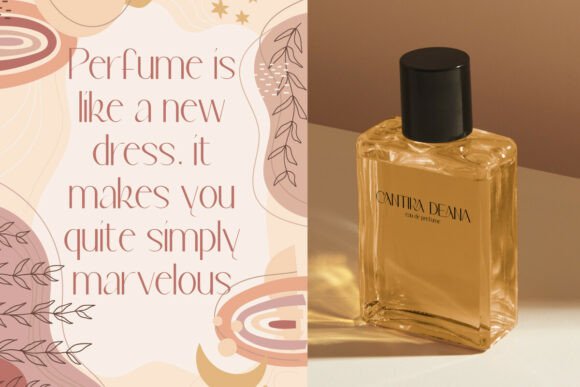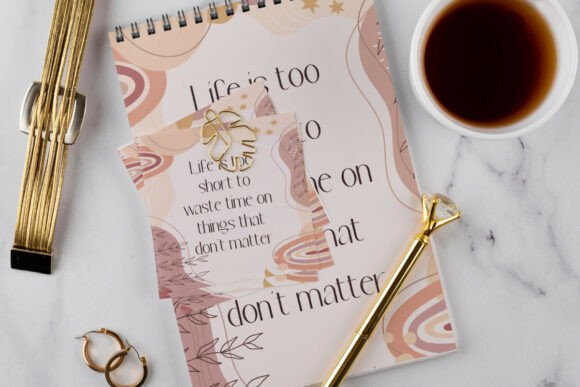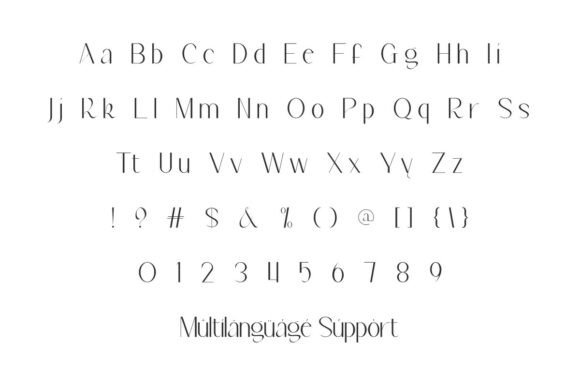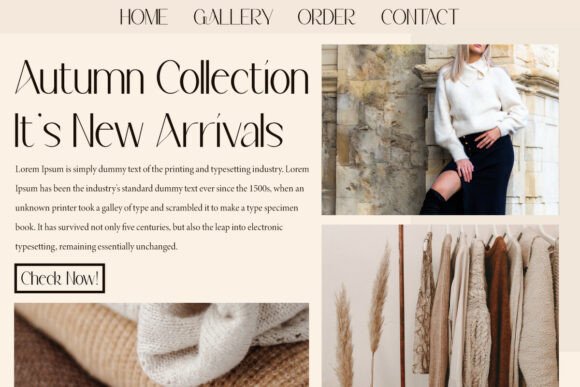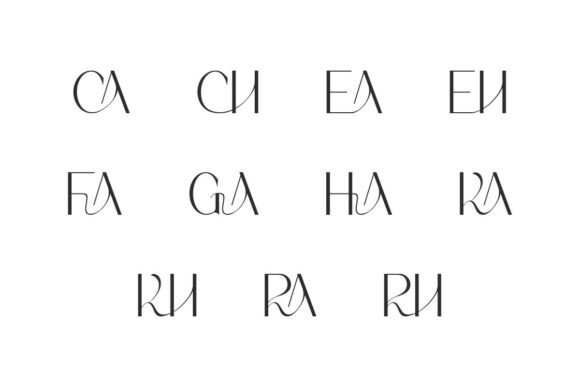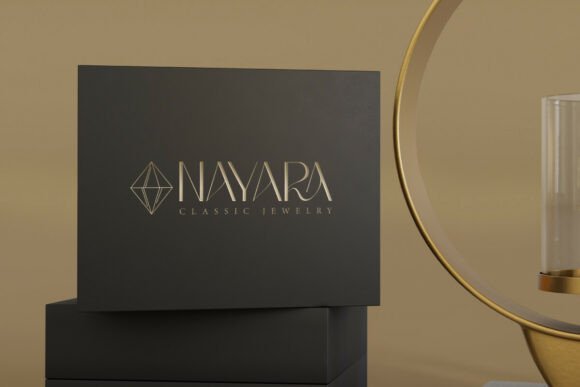
Elegance Redefined: The Cantika Deana Font
In the world of typography, few fonts manage to convey the essence of luxury and sophistication as effortlessly as the Cantika Deana font. This high-fashion serif typeface has redefined the concept of elegance, making it the go-to choice for designers seeking to add a touch of glamour to their projects. With its ultra-thin hairlines and dramatic, sweeping curves, Cantika Deana exudes a sense of movement and refinement, perfect for luxury editorial spreads, high-end wedding stationery, and premium skincare branding.
Characteristics of Cantika Deana
The Cantika Deana typeface is characterized by its striking features, which set it apart from other serif fonts. Its ultra-thin hairlines create a sense of delicacy, while the dramatic, sweeping curves add a touch of drama and sophistication. These features combine to create a font that is both elegant and refined, making it perfect for projects that require a high level of sophistication.
Maximizing the Impact of Cantika Deana
To maximize the impact of the Cantika Deana typeface, designers should use it with generous letter spacing. This allows the delicate ligatures to breathe, creating a sense of elegance and refinement. When used in this way, Cantika Deana pairs flawlessly with minimalist photography and a muted color palette, making it ideal for jewelry catalogs, perfume labels, and upscale boutique identities.
Ideal Applications for Cantika Deana
Cantika Deana is a versatile font that can be used in a variety of applications, including:
- Luxury editorial spreads: Cantika Deana’s elegant and refined features make it perfect for high-end editorial spreads, such as fashion magazines and luxury lifestyle publications.
- High-end wedding stationery: The font’s sophisticated and elegant features make it ideal for wedding stationery, including invitations, programs, and place cards.
- Premium skincare branding: Cantika Deana’s luxurious and refined features make it perfect for premium skincare branding, including packaging, labels, and marketing materials.
- Jewelry catalogs: The font’s elegant and sophisticated features make it ideal for jewelry catalogs, adding a touch of luxury and refinement to product listings and descriptions.
- Perfume labels: Cantika Deana’s refined and elegant features make it perfect for perfume labels, adding a touch of sophistication and glamour to fragrance packaging.
- Upscale boutique identities: The font’s luxurious and refined features make it ideal for upscale boutique identities, including logos, signage, and marketing materials.
Accessibility and Encoding
The Cantika Deana font includes PUA (Private Use Area) encoding, which makes all special characters and decorative elements easily accessible without additional software. This feature allows designers to easily incorporate the font’s unique features into their projects, without the need for complex software or technical expertise.
Tips for Working with Cantika Deana
To get the most out of the Cantika Deana font, designers should consider the following tips:
- Use generous letter spacing to allow the delicate ligatures to breathe.
- Pair Cantika Deana with minimalist photography and a muted color palette to create a sense of elegance and refinement.
- Experiment with different font sizes and styles to create visual interest and hierarchy.
- Take advantage of the font’s PUA encoding to easily access special characters and decorative elements.
In conclusion, the Cantika Deana font is a luxurious and refined typeface that redefines the concept of elegance. With its ultra-thin hairlines and dramatic, sweeping curves, it is perfect for designers seeking to add a touch of glamour to their projects. By following the tips outlined above and taking advantage of the font’s features, designers can create stunning and sophisticated designs that showcase the beauty and elegance of Cantika Deana.